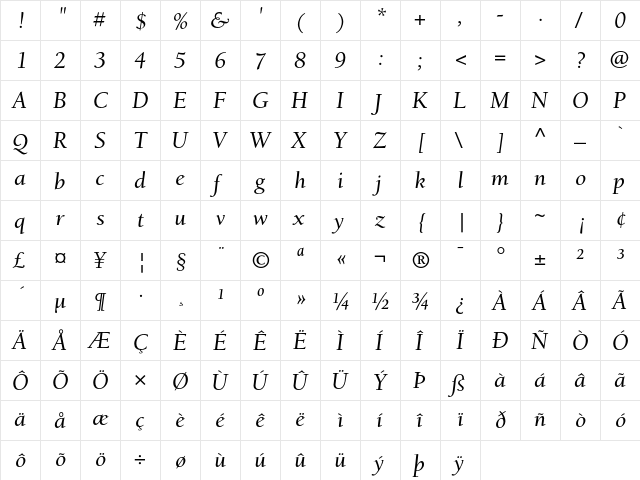
Berkeley Regular Font Preview
Berkeley Regular
Design Context for Berkeley Typeface
Berkeley takes a measured approach to typography — its balanced proportions and neutral character make it a reliable workhorse for both digital and print work.
Originally released in 1989, this typeface is available in OpenType (OTF) format.
Pro Tip: Use Berkeley in both headline and body roles to test its range before committing to a single application.